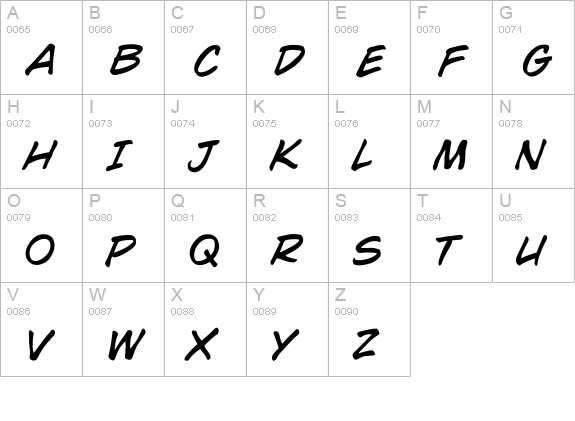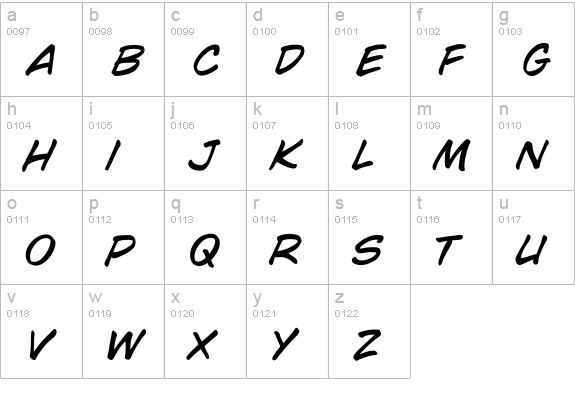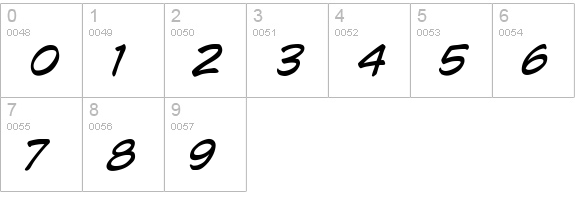
CCWildWords-Italic Font Details
CCWildWords-Italic is a distinctive, italic variant in the CCWildWords typeface family \xE2\x80\x94 well suited to design and typography projects.
Introducing CCWildWords-Italic, a captivating and versatile font that brings a touch of elegance to any design project. Its sleek and stylish italicized form exudes sophistication and charm, making it perfect for adding a touch of class to your work. This unique font is not only visually appealing but also highly readable, making it suitable for a wide range of applications such as branding, logos, packaging, invitations, and more. Whether you're looking to create a modern and chic look or add a subtle flair to your designs, CCWildWords-Italic has got you covered. And the best part? CCWildWords-Italic is completely free to download at FontsMarket.com, allowing you to elevate your designs without breaking the bank. So why wait? Give your projects a stylish edge with CCWildWords-Italic today.